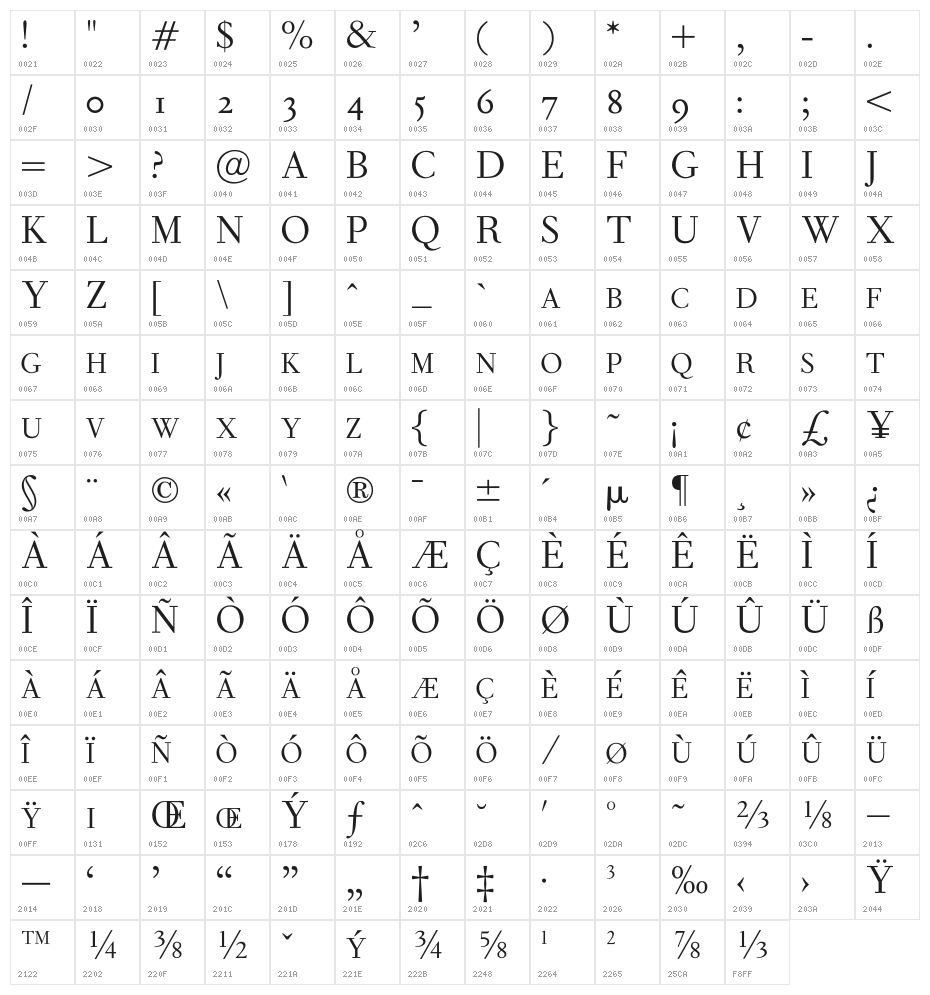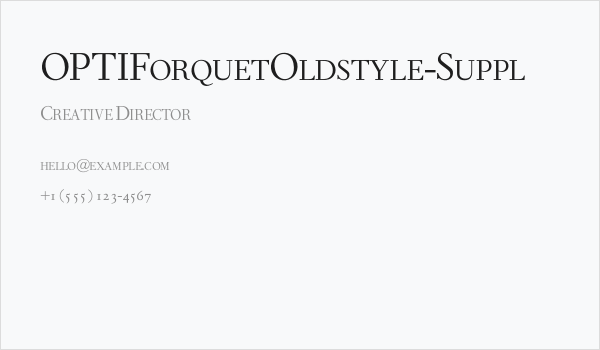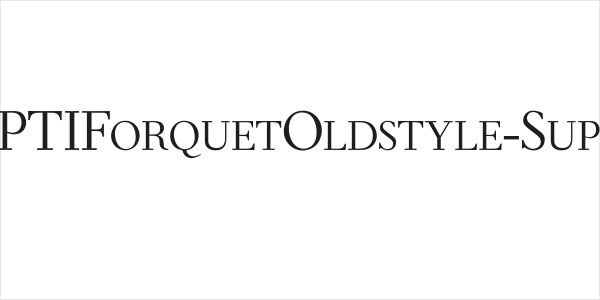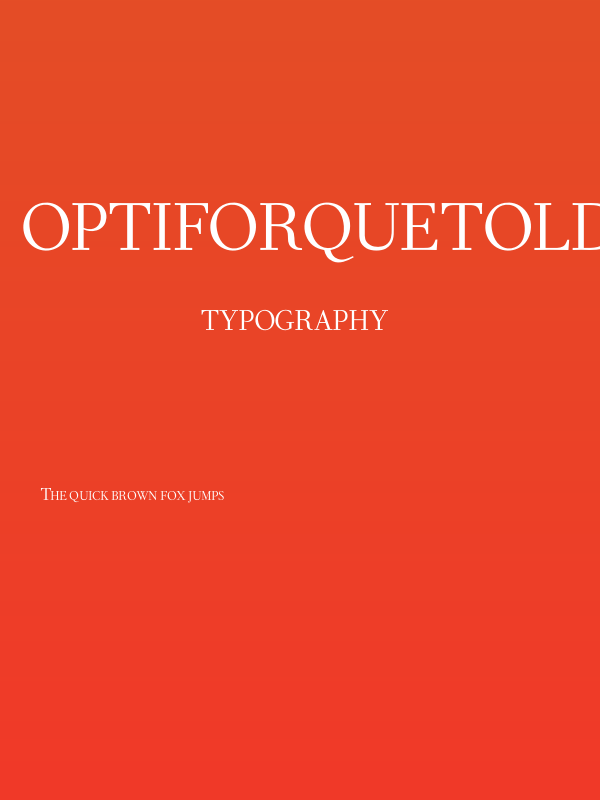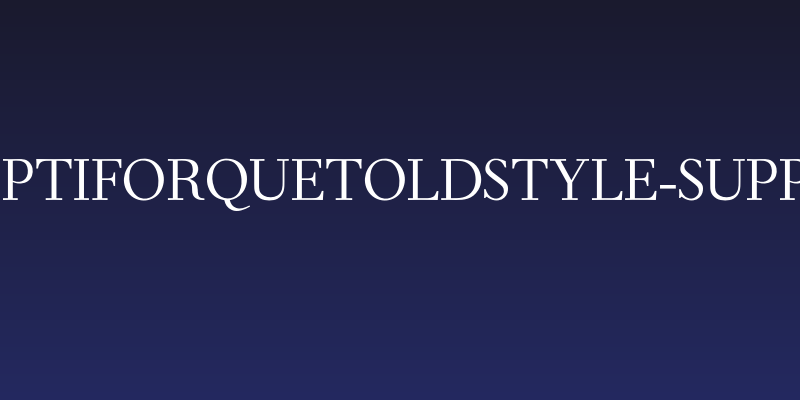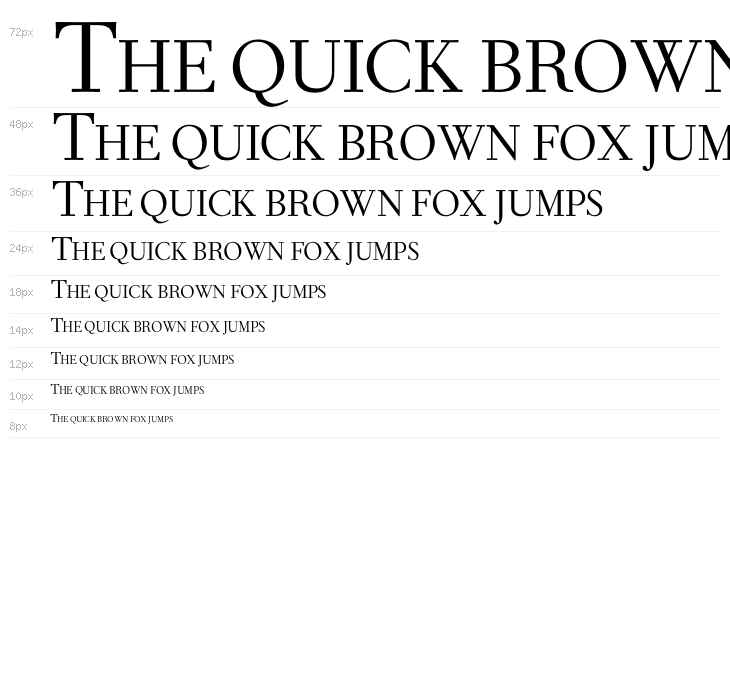
OPTIForquetOldstyle-Suppl Font
OPTIForquetOldstyle-Suppl Description
This typeface exhibits a classic old-style serif design, characterized by its elegant and traditional appearance. The letters feature distinct serifs with a slight curvature, providing a sense of sophistication and readability. The uppercase characters are well-proportioned, with a noticeable contrast between thick and thin strokes, enhancing the font's legibility. The lowercase letters maintain a harmonious balance, complementing the uppercase set. Numerals are designed with a consistent style, ensuring clarity and uniformity. The special characters are crafted with attention to detail, maintaining the overall aesthetic of the typeface. This font is suitable for projects that require a touch of elegance and tradition, such as formal invitations, editorial design, and classic branding.
| Proposed Projects | Ideal for formal invitations, editorial design, classic branding, and book typography. |